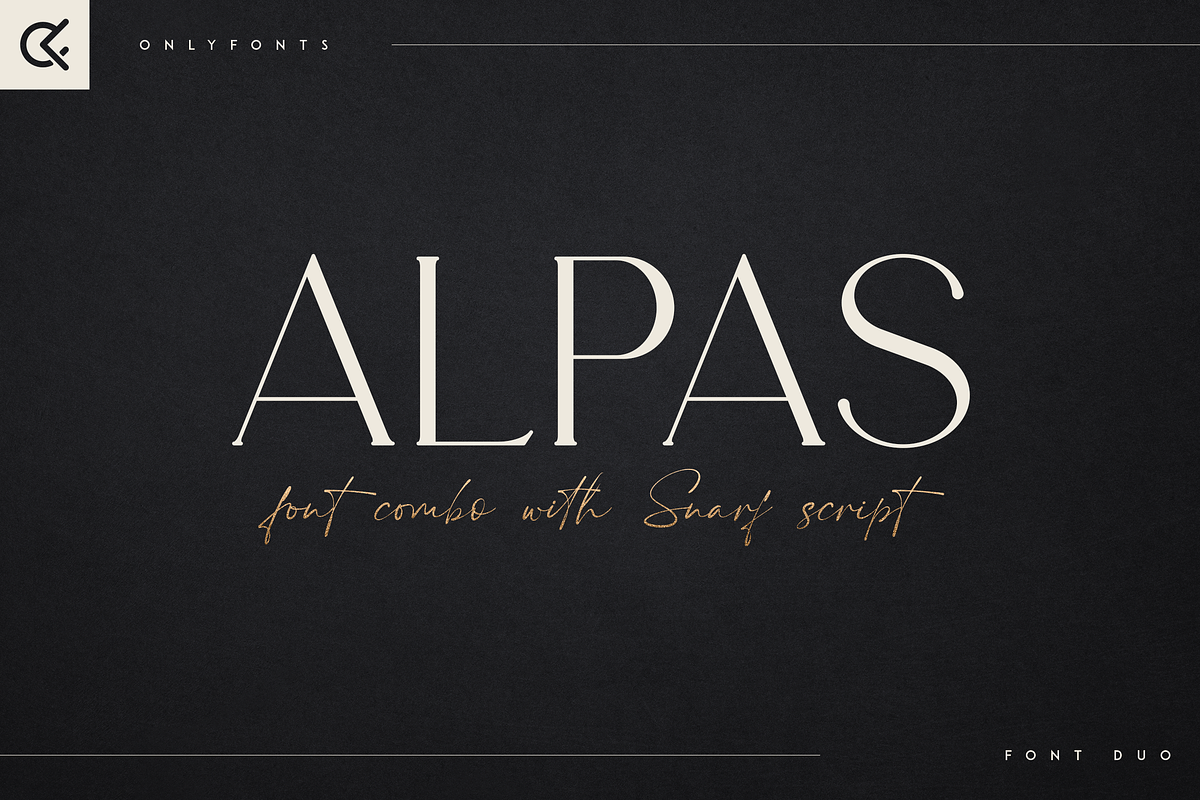
Alpas & Snarf Font Duo Free Download is a creative and contrasting font pairing that blends elegant serif sophistication with playful handwritten charm. The Alpas font brings refined, modern serif aesthetics—perfect for titles, branding, and upscale design—while Snarf adds a casual, expressive handwritten vibe, ideal for taglines, quotes, and lifestyle content.
Together, the Alpas & Snarf Font Duo Free Download offers perfect typographic balance: structure and personality, elegance and fun. This versatile duo is perfect for logos, social media posts, invitations, packaging, and editorial layouts where visual interest and harmony are key.